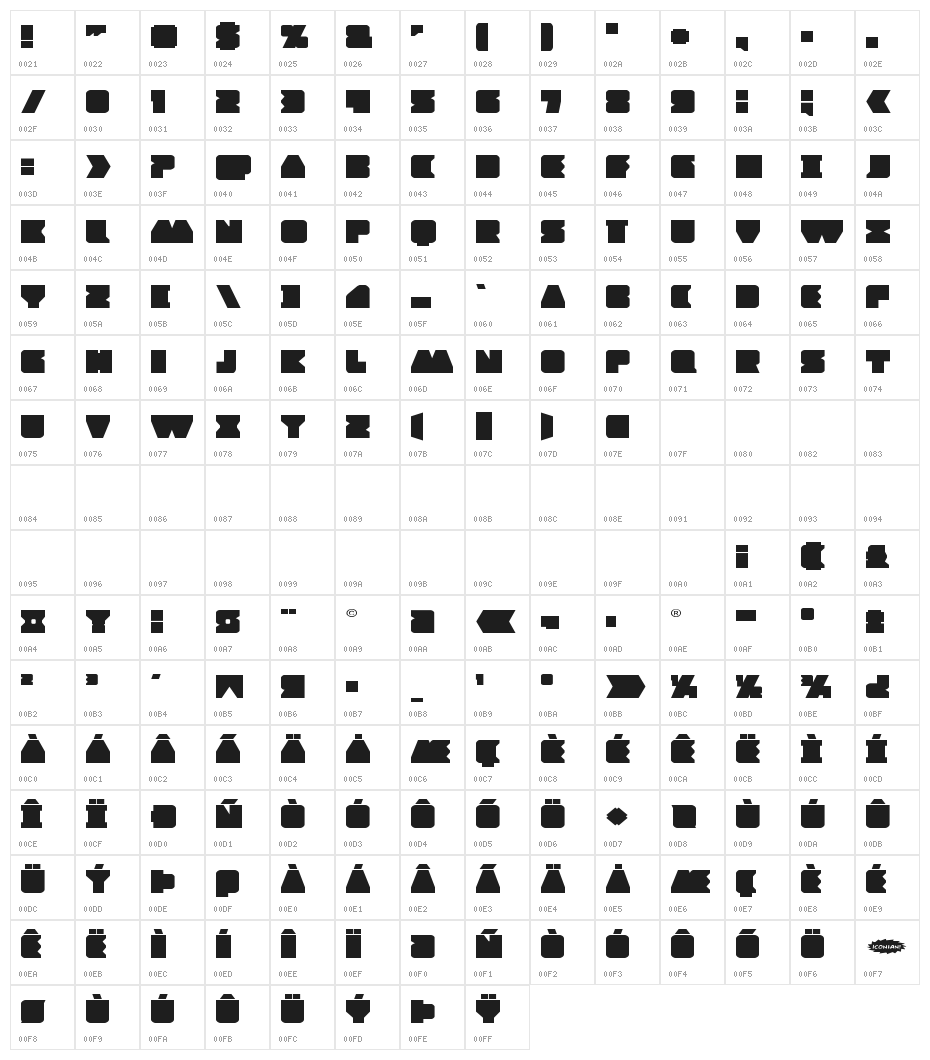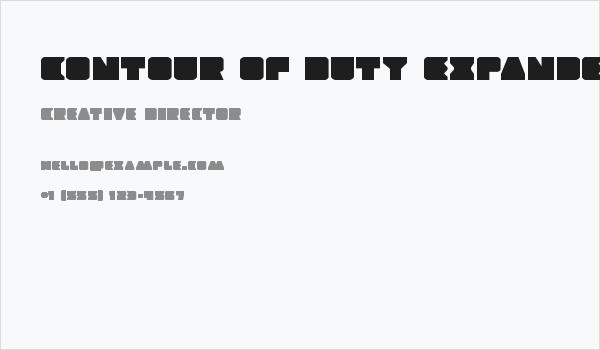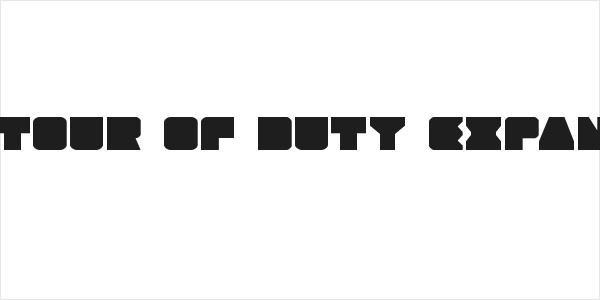
Contour of Duty Expanded Font
Contour of Duty Expanded Description
This font features a bold, geometric design with a distinctly modern and futuristic aesthetic. The characters are constructed with sharp angles and a block-like structure, giving them a strong, impactful presence. The uppercase and lowercase letters maintain a consistent style, with each character exhibiting a unique, angular form that adds to the overall cohesiveness of the typeface. The numbers and special characters follow the same design principles, ensuring uniformity across all glyphs. This font's expanded width and heavy weight make it particularly suitable for attention-grabbing headlines and display purposes.
| Proposed Projects | Ideal for use in video game titles, sci-fi movie posters, tech branding, and any project requiring a strong, modern aesthetic. |